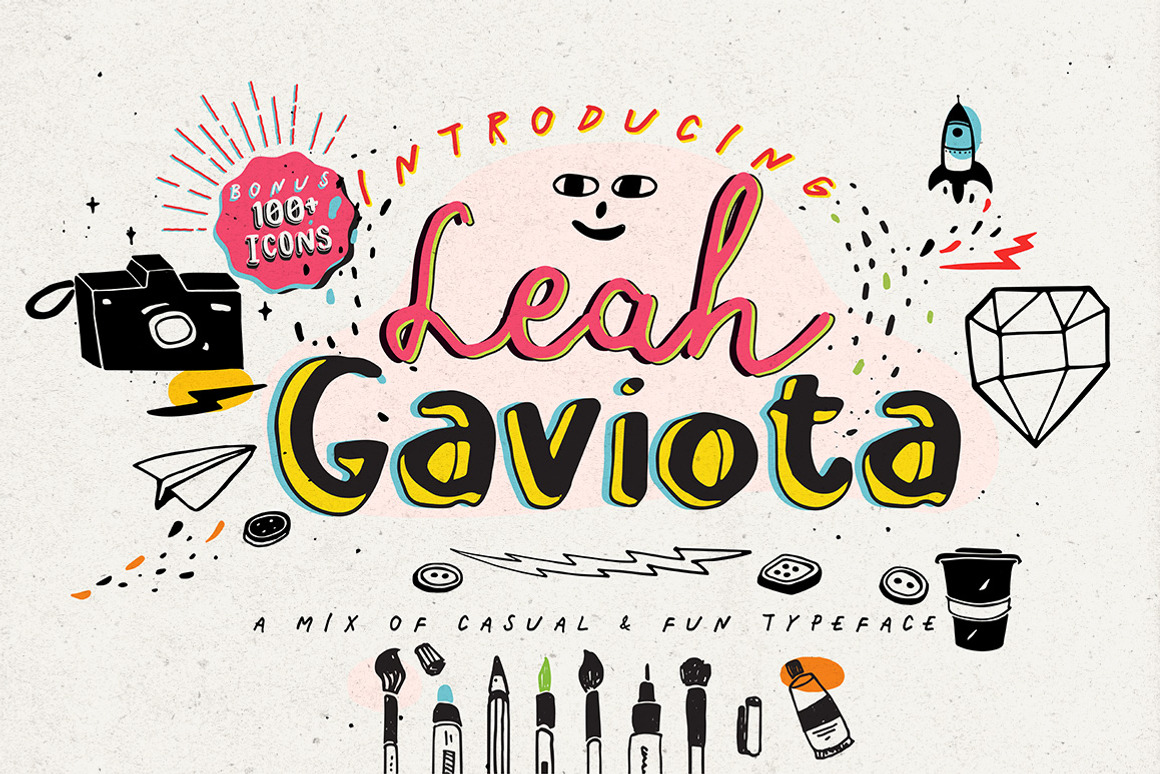
Leah Gaviota Script Font
Leah Gaviota Script Font is perfect for beach wedding invitations, coastal resort branding, summer fashion campaigns, tropical restaurant logos, nautical product packaging, seaside boutique signage, ocean-themed greeting cards, marine conservation materials, surf brand merchandise, and luxury yacht communications. This flowing script typeface excels in applications where natural beauty, coastal elegance, and oceanic inspiration are central to the design concept.
Leah Gaviota Script Font is exciting because it captures the fluid movement of ocean waves and coastal breezes through its gracefully flowing letterforms. Its organic curves and natural rhythm create a sense of seaside serenity and effortless elegance that evokes memories of sun-soaked beaches and gentle sea winds. The font's handcrafted appearance features smooth connections, varied baseline positioning, and subtle flourishes that mirror the unpredictable beauty of coastal landscapes.
The Leah Gaviota Script Font family includes Regular, Bold, and Light variations, plus an extensive collection of swashes, alternates, and decorative elements inspired by marine life and coastal motifs. The family features over 150 stylistic alternates, contextual ligatures, and ornamental flourishes including seashells, waves, and nautical symbols. Multiple language support ensures versatility for international coastal destinations and global marine brands.
Professional designers choose Leah Gaviota Script Font for its ability to convey relaxation, natural beauty, and coastal lifestyle aspirations. The font's organic personality works magnificently in both large display applications and intimate text settings. Its versatile nature makes it suitable for luxury resort communications and casual beachside businesses seeking authentic coastal character.
The enchanting flow of Leah Gaviota Script Font transports audiences to pristine coastlines and peaceful ocean retreats. Its authentic handcrafted appearance speaks to travelers and lifestyle enthusiasts seeking genuine coastal experiences while maintaining the sophistication required for premium hospitality and lifestyle brands.